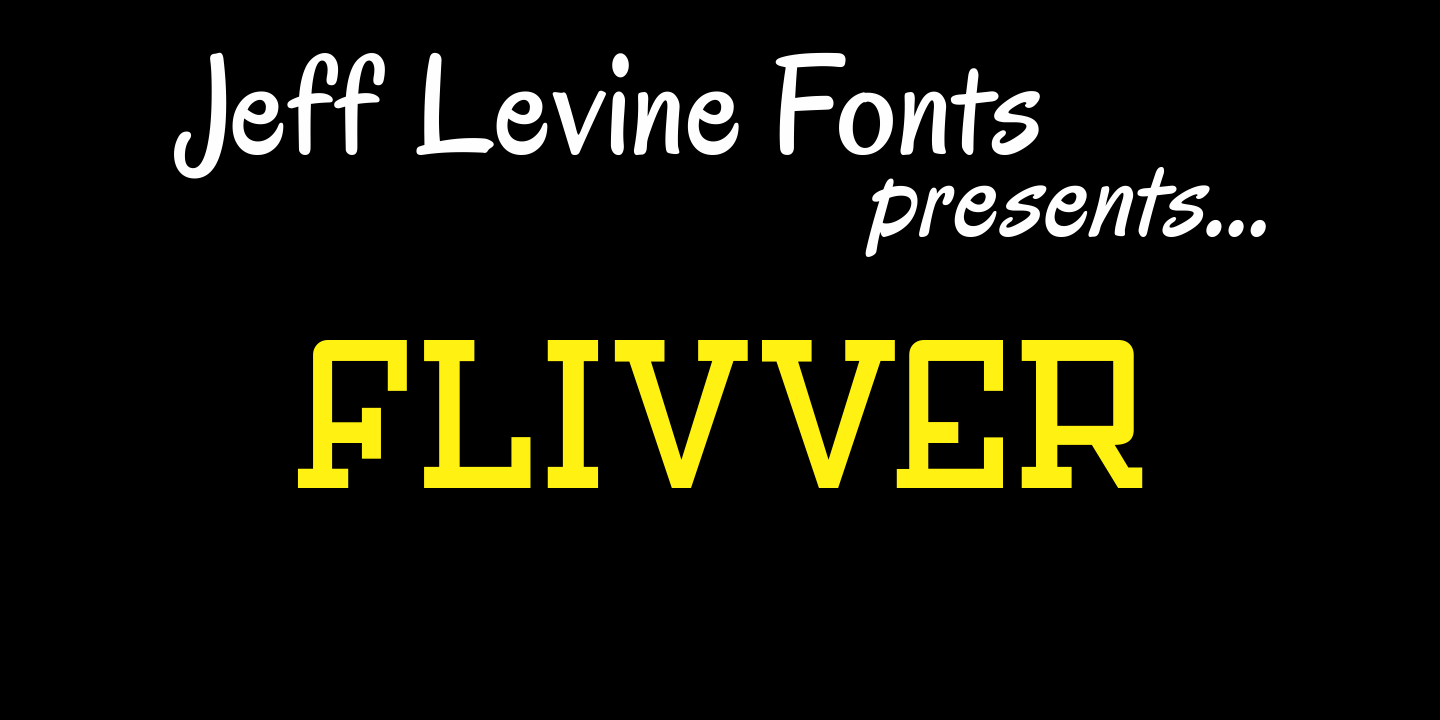
Flivver
Flivver JNL takes its name from the slang term applied to Model T's in the 1920s, and it's design is a first-cousin to Two Reeler JNL (inspired by lettering on titles from a Charlie Chaplin silent film).